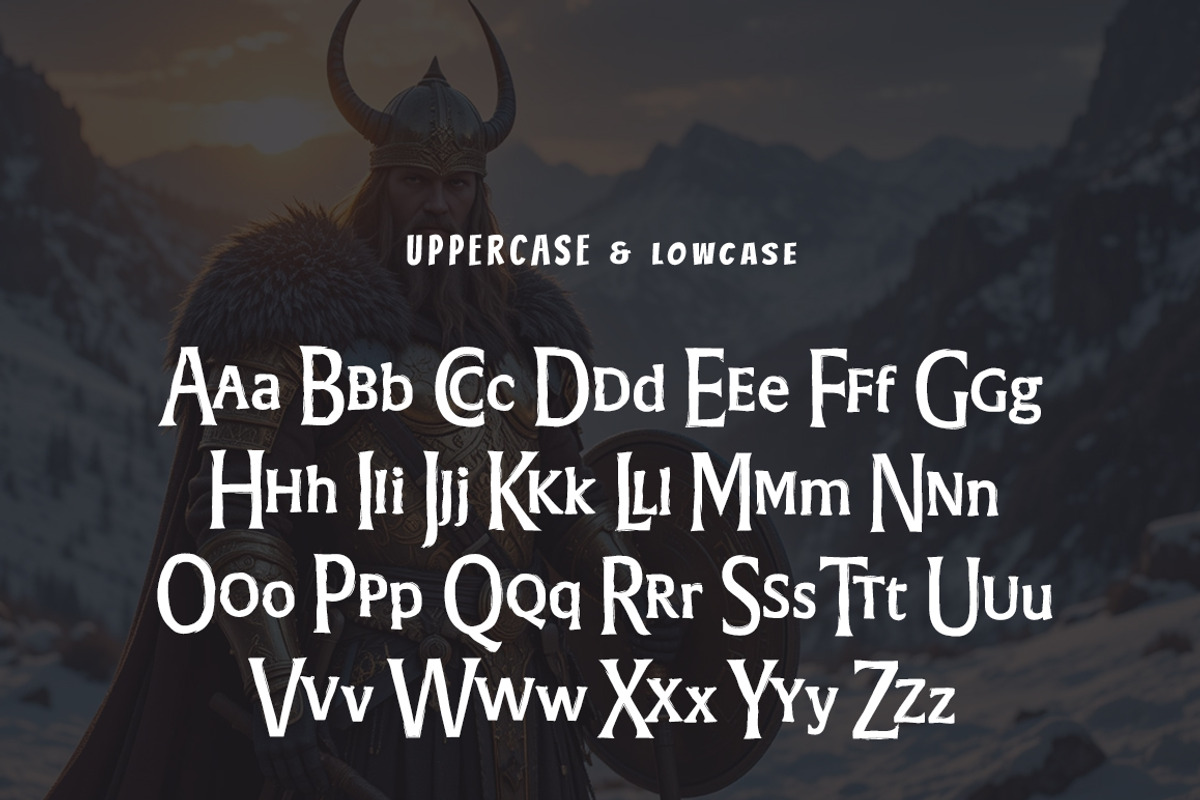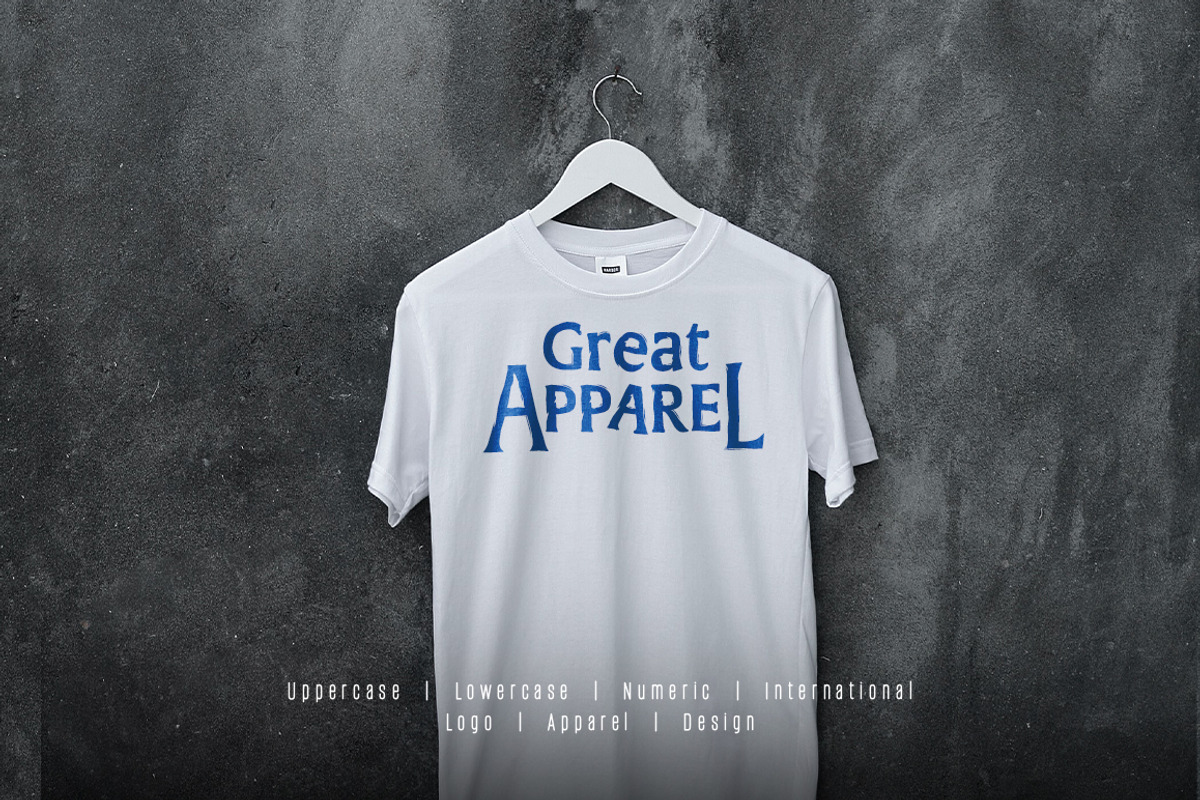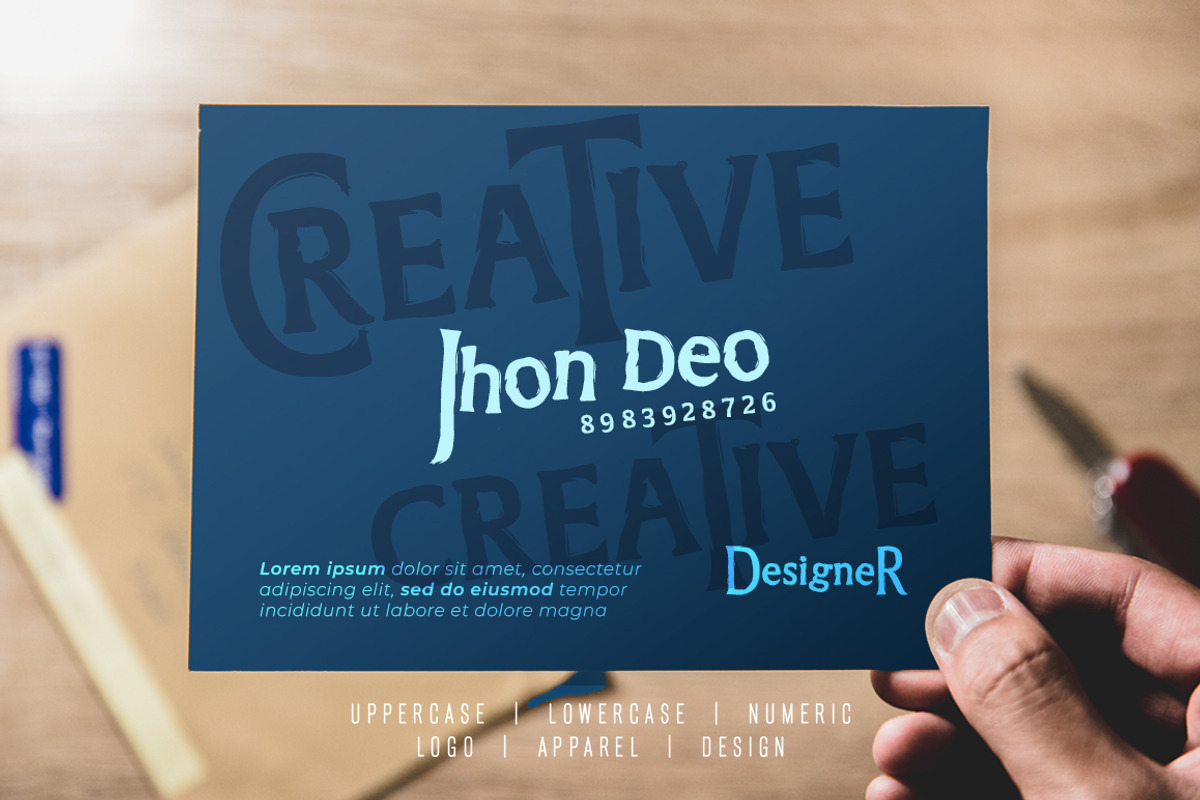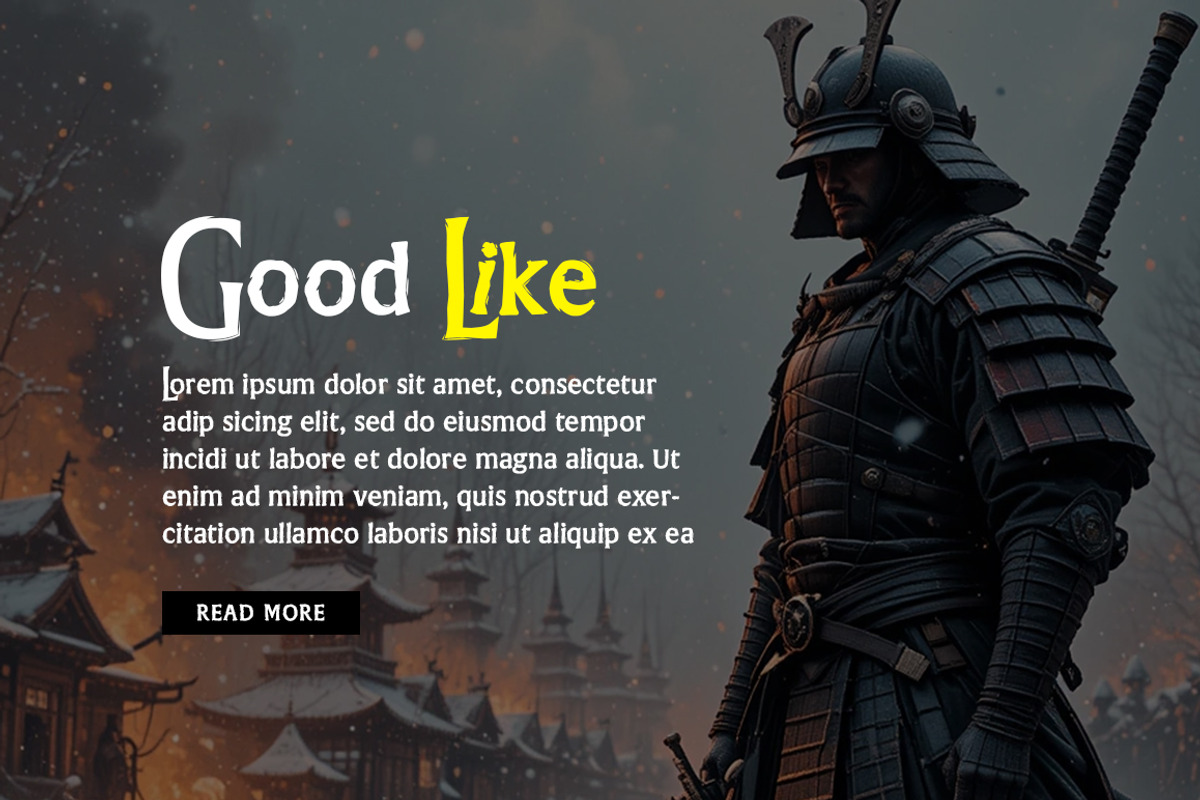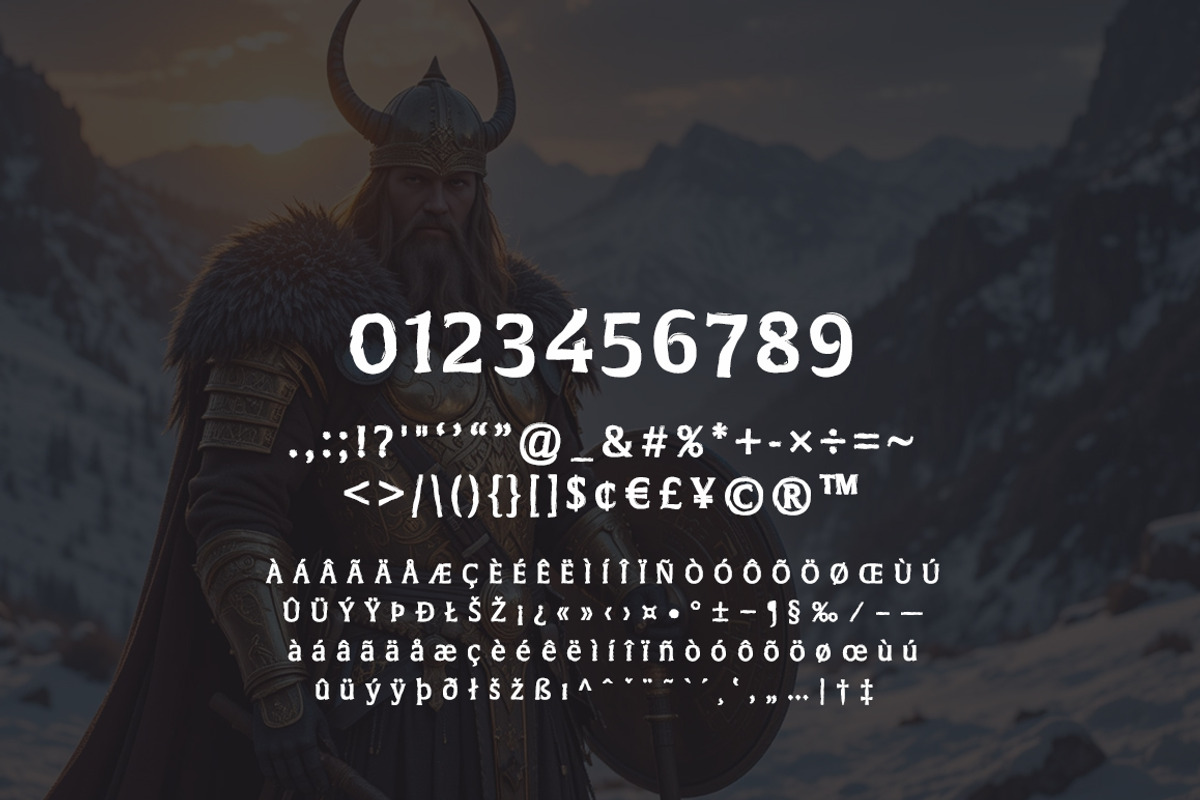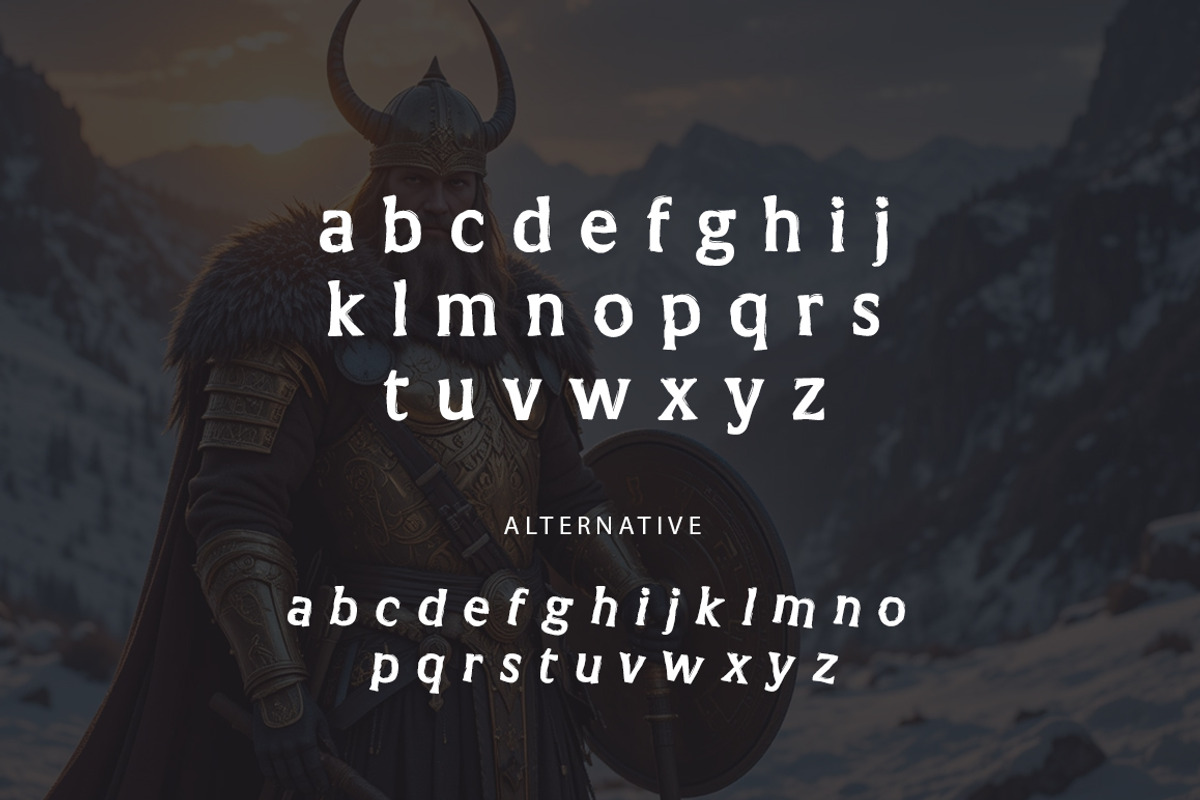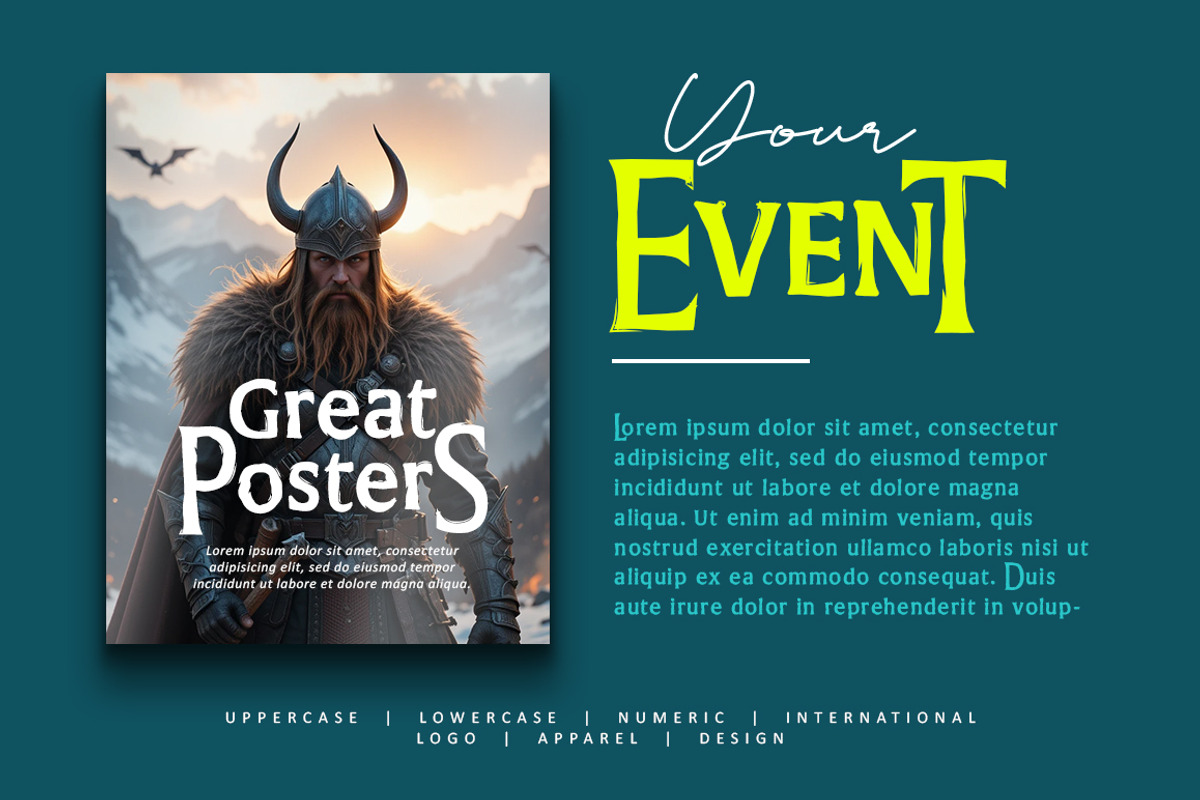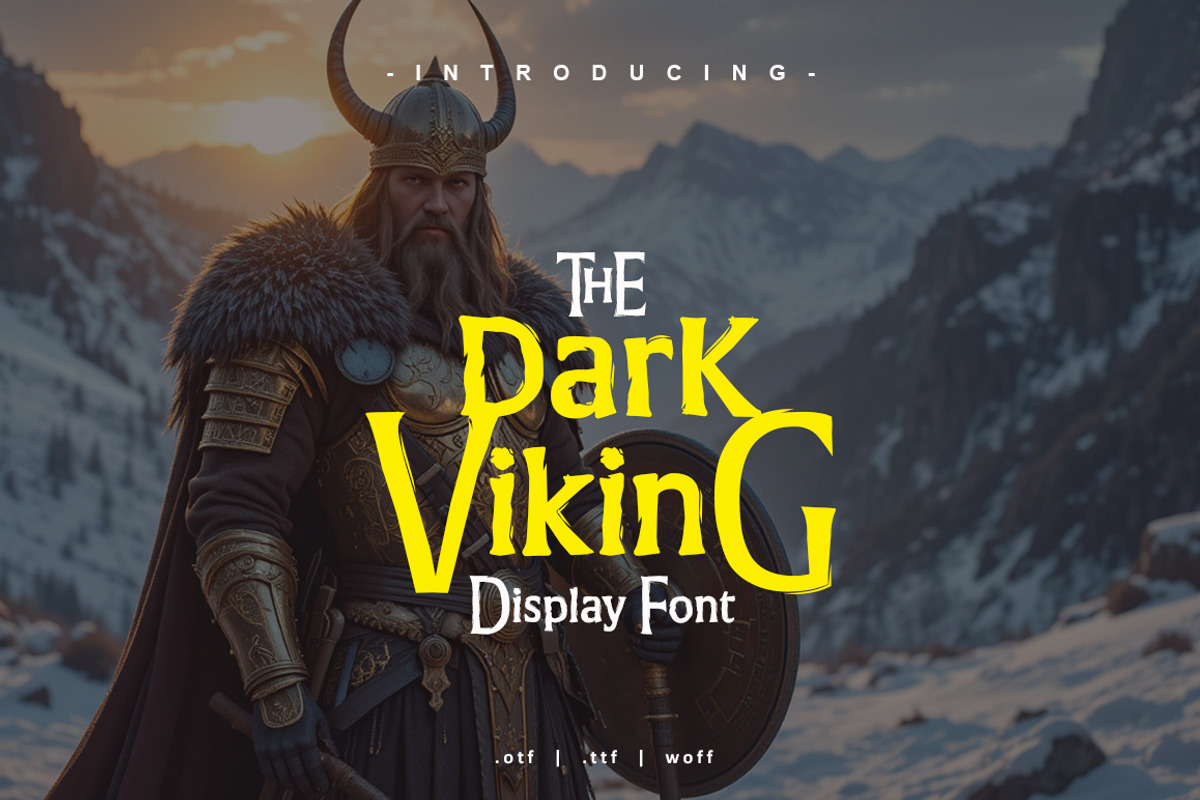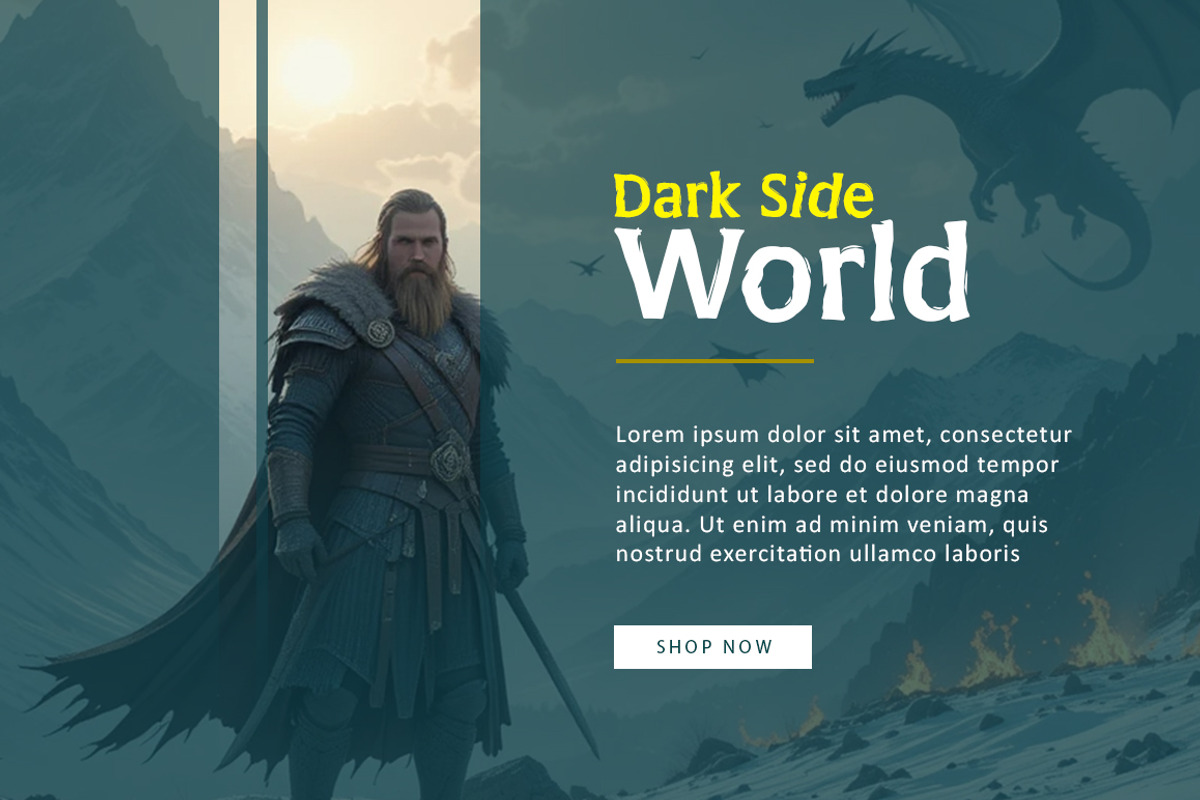
Dark Viking Font
Dark Viking Font very suitable for poster, for logo, music cover, clothing, and many many cool design projects. Dark Viking Font is uppercase, lowercas and numeric. Regular and Alternate Font